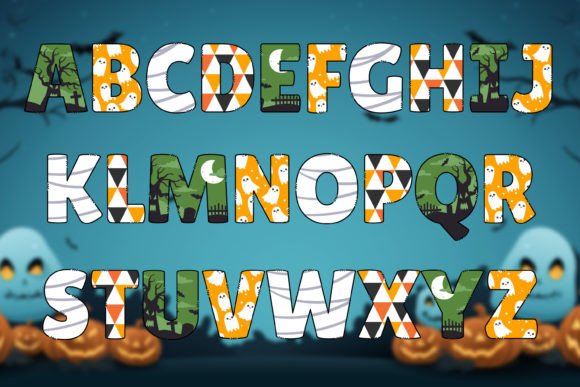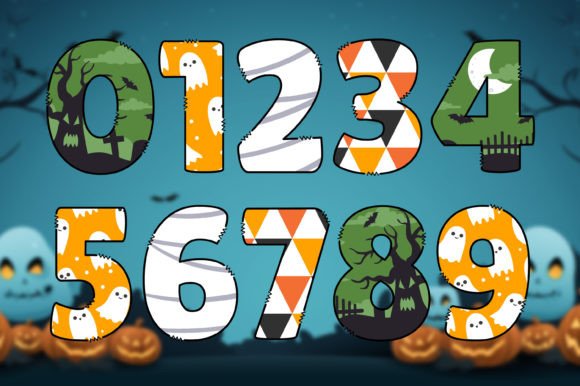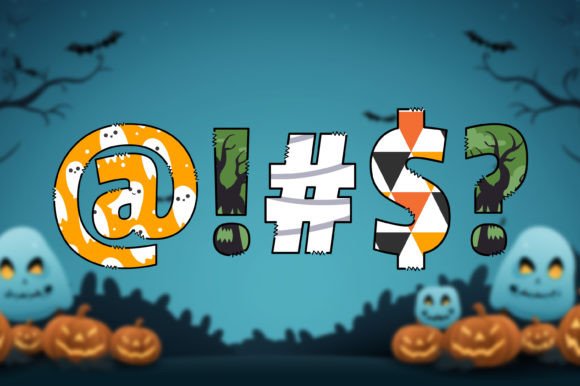
The Spooky Charm of Halloween Fonts: A Guide for Designers and Crafters
Halloween is just around the corner, and with it comes the excitement of creating spooky and fun designs for various projects. One of the most crucial elements in designing for Halloween is choosing the right font. A Halloween font can add a touch of eeriness, playfulness, or festivity to your designs, making them stand out and perfect for the season. In this article, we’ll explore the world of Halloween fonts, their characteristics, and how to use them in your designs.
What are Halloween Fonts?
Halloween fonts are typefaces designed to evoke the spirit of Halloween. They often feature bold, playful, and sometimes spooky designs, making them perfect for creating eye-catching and festive designs. These fonts can range from simple and elegant to complex and ornate, offering a wide range of options for designers and crafters.
Characteristics of Halloween Fonts
Halloween fonts often have distinct characteristics that make them stand out. Some common features include:
• Bold and playful designs: Halloween fonts often feature bold and playful designs, making them perfect for creating eye-catching headlines and titles.
• Ornate and decorative elements: Many Halloween fonts feature ornate and decorative elements, such as swirls, flourishes, and other embellishments.
• Spiky and edgy designs: Some Halloween fonts feature spiky and edgy designs, adding a touch of eeriness and spookiness to your designs.
Uses of Halloween Fonts
Halloween fonts are versatile and can be used in various designs, including:
• Children’s books: Halloween fonts can add a touch of playfulness and fun to children’s books, making them perfect for Halloween-themed stories.
• Posters and flyers: Halloween fonts can be used to create eye-catching posters and flyers for Halloween events, parties, and promotions.
• Invitations and greeting cards: Halloween fonts can add a touch of festivity and spookiness to invitations and greeting cards, making them perfect for Halloween-themed events.
• Crafting and DIY projects: Halloween fonts can be used in various crafting and DIY projects, such as making Halloween-themed decorations, signs, and other crafts.
Examples of Halloween Fonts
Some popular examples of Halloween fonts include:
• Creepster: A spooky and playful font featuring a mix of uppercase and lowercase letters.
• Halloween Horror: A bold and eerie font featuring spiky and edgy designs.
• Pumpkin Spice: A warm and playful font featuring a mix of serif and sans-serif designs.
Tips for Using Halloween Fonts
Here are some tips for using Halloween fonts in your designs:
• Choose a font that fits your design: Select a font that complements your design and adds to the overall aesthetic.
• Experiment with different sizes and colors: Play around with different font sizes and colors to create a unique and eye-catching design.
• Combine with other design elements: Combine your Halloween font with other design elements, such as images and graphics, to create a cohesive and engaging design.
Halloween fonts are a great way to add a touch of spookiness and playfulness to your designs. With their bold and playful designs, ornate and decorative elements, and spiky and edgy features, Halloween fonts are perfect for creating eye-catching and festive designs. Whether you’re a designer or crafter, Halloween fonts can help you create unique and engaging designs for the Halloween season.